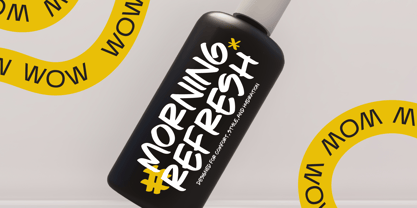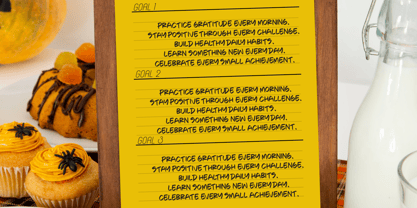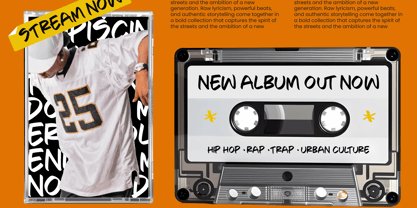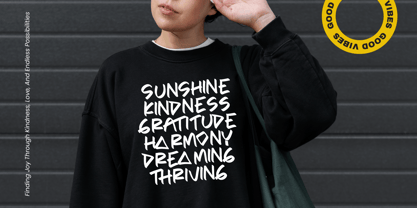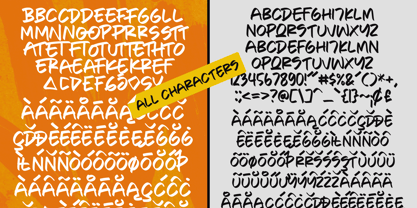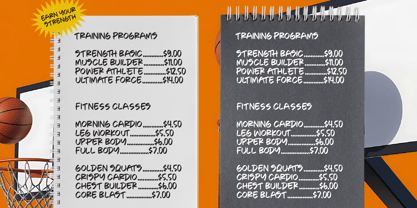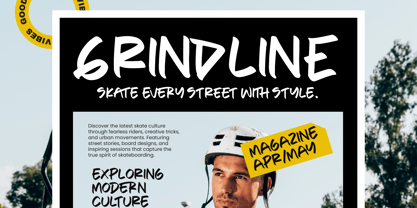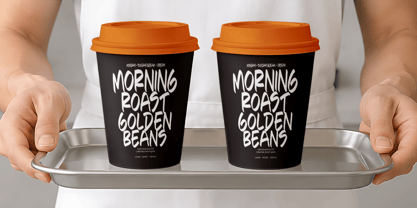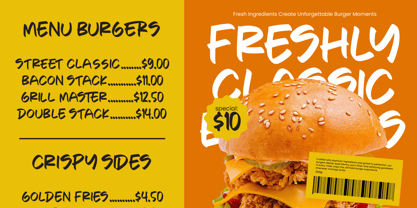
Frisky Blow
by Stylishtype Studio
The Frisky Blow Font Family was designed by Heru Utama Putra and published by Stylishtype Studio. Frisky Blow contains 2 styles and family package options. More about this family
Elevate your creative projects with the raw, energetic aesthetic of a truly hand-crafted masterpiece. Frisky Blow - Brush Display Font captures the essence of authentic brush strokes, providing a dynamic energy that commands immediate attention. Its bold visual impact is perfect for designers looking to inject personality and a human touch into their digital and print compositions, ensuring your message is delivered with unmistakable confidence.